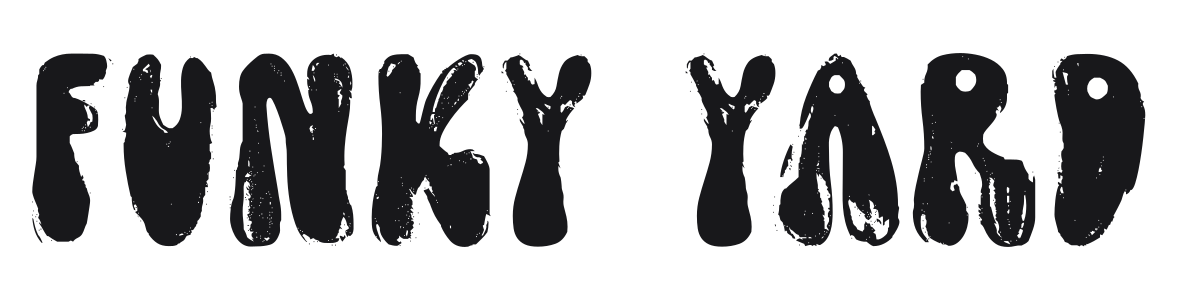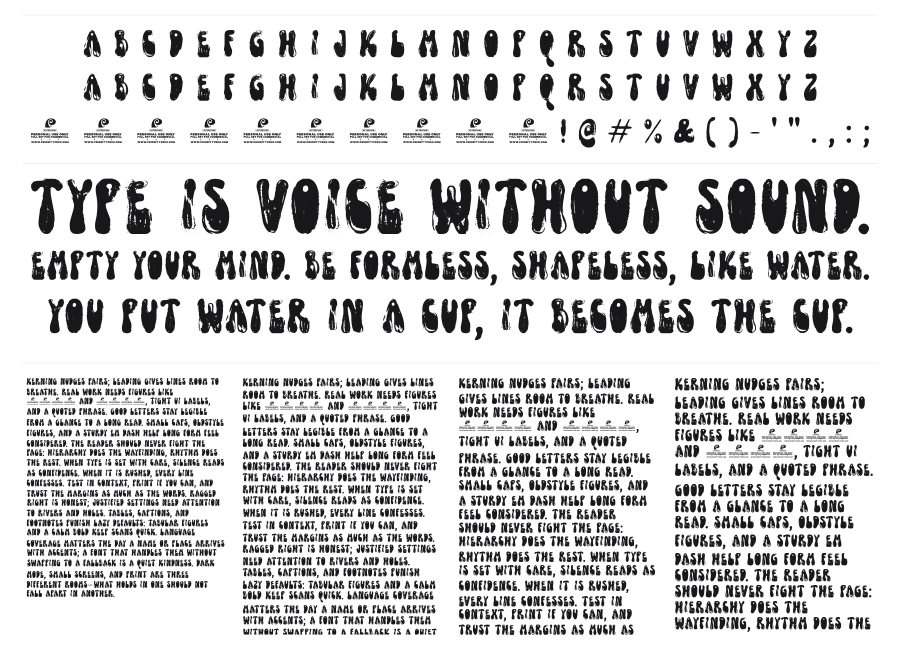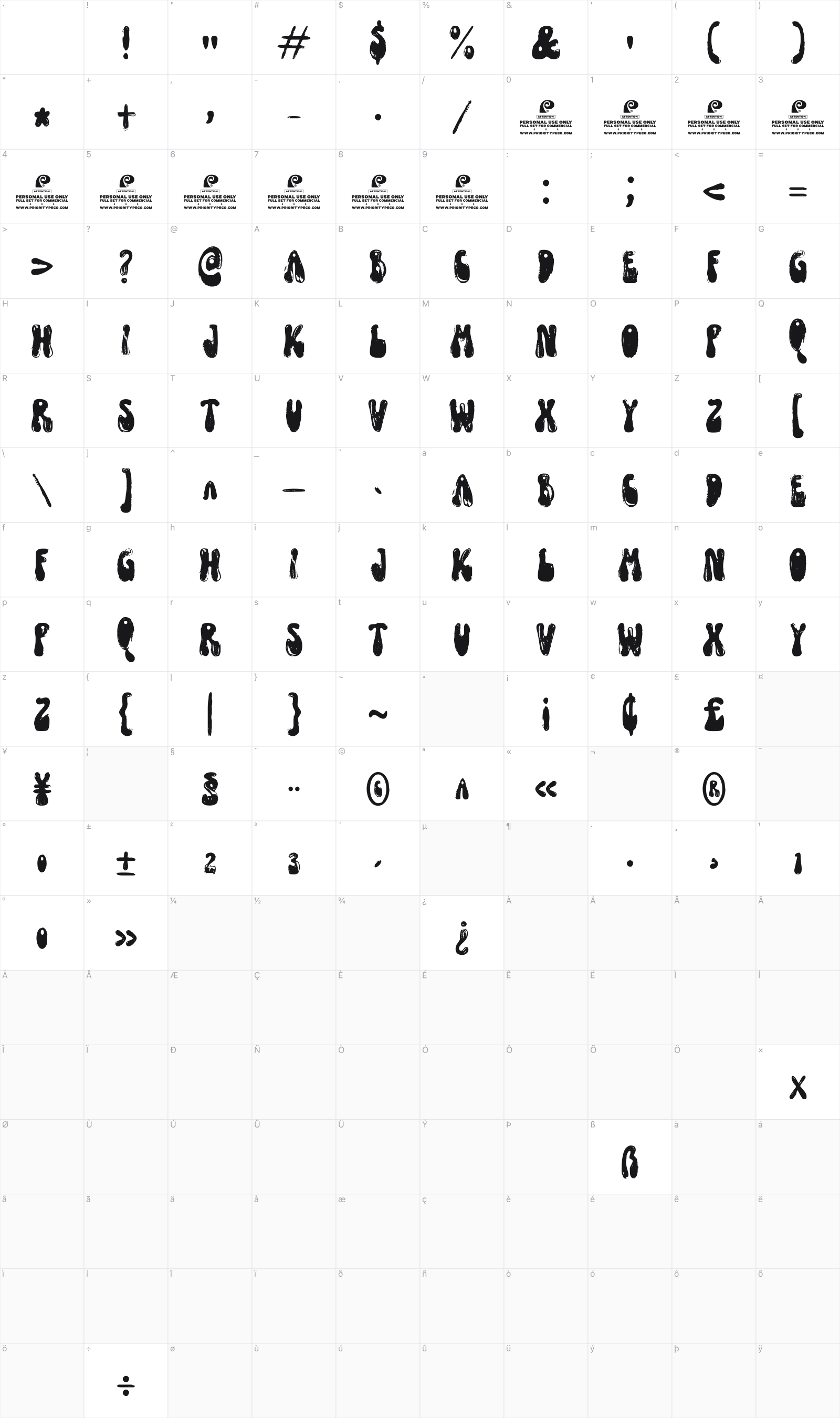
Funky Yard
Funky Yard is a bold, distressed groovy display font soaked in 1960s and 70s psychedelic energy. Its puffy, rounded letter shapes are layered with a rough hand-inked texture that keeps the retro vibe feeling genuinely handmade rather than digital. The result sits somewhere between a record cover, a skate brand, and a vintage festival poster.